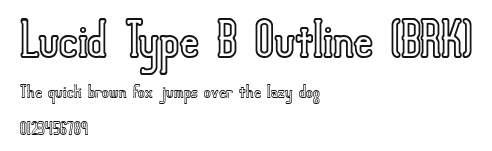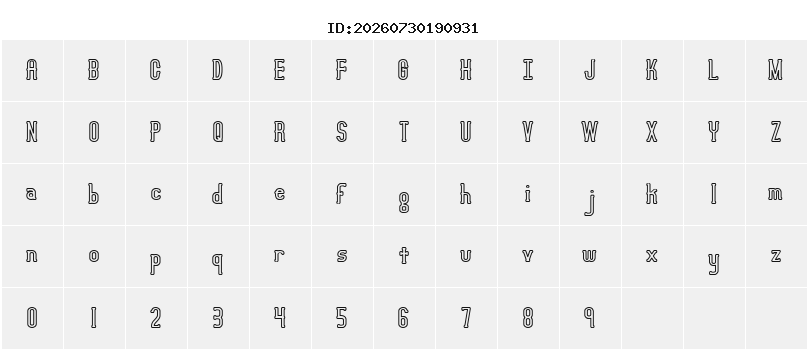
Lucid Type B Outline (BRK) Preview
• Font Name: Lucid Type B Outline (BRK)
• Full Font Name: Lucid Type B Outline (BRK)
About Lucid Type B Outline (BRK).ttf
Lucid Type B Outline (BRK).ttf is a modern, elegant sans-serif font designed for ultimate readability and visual harmony. Perfect for branding, headlines, web design, and print materials.